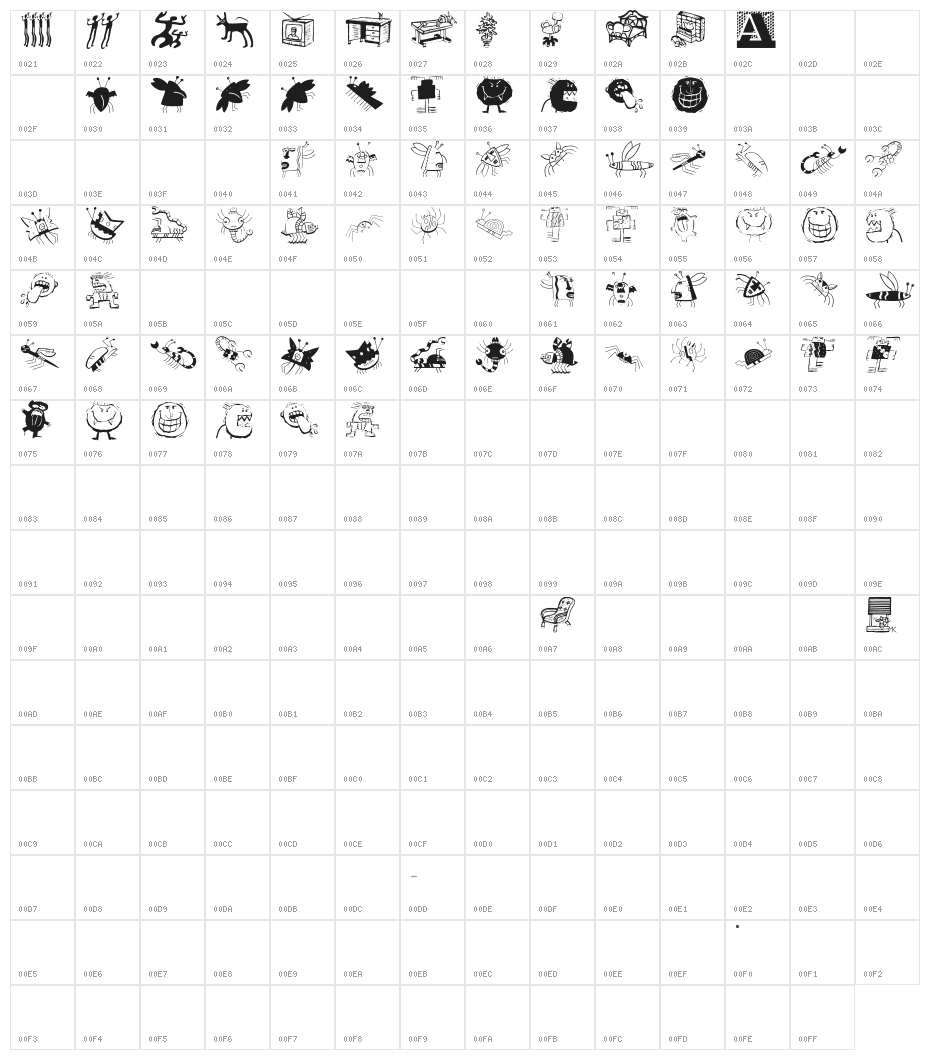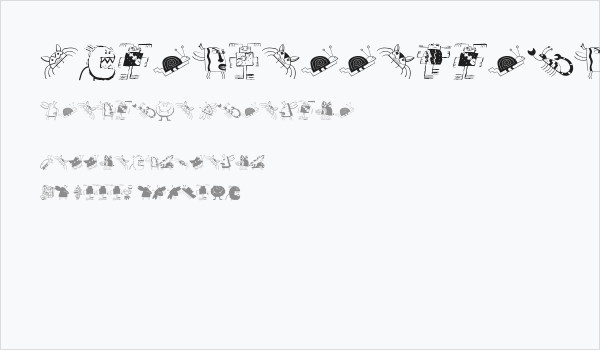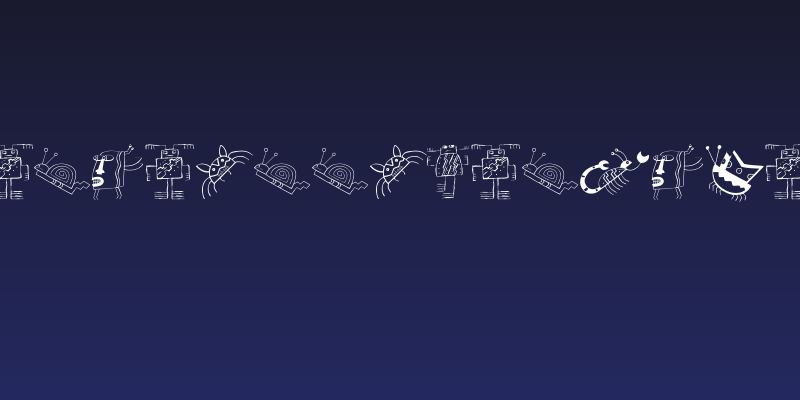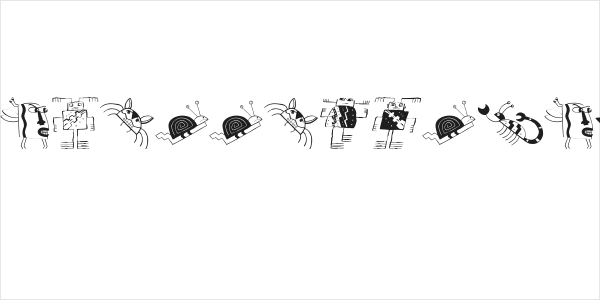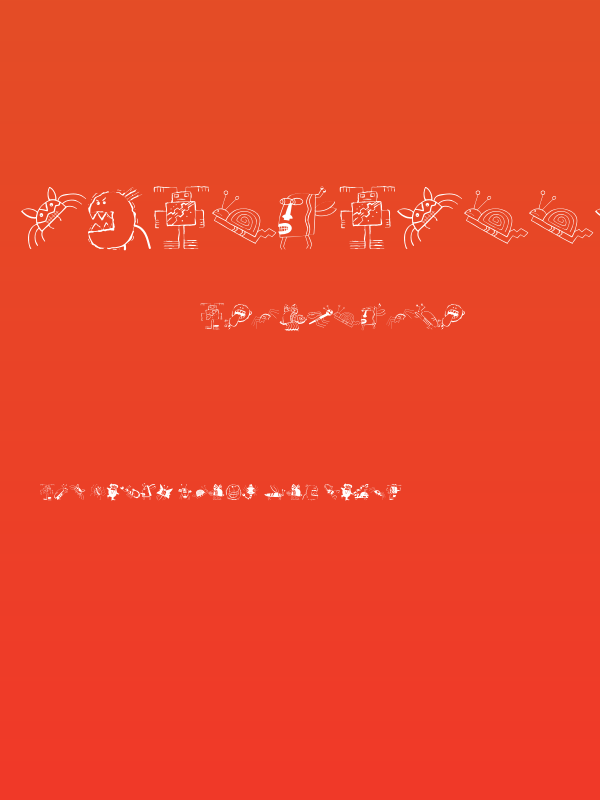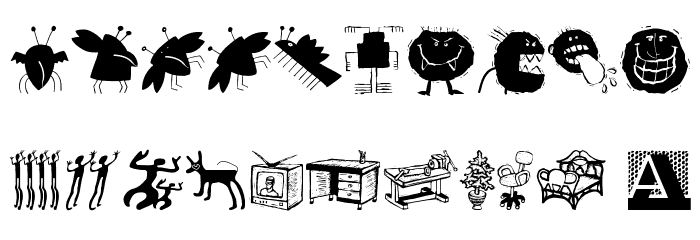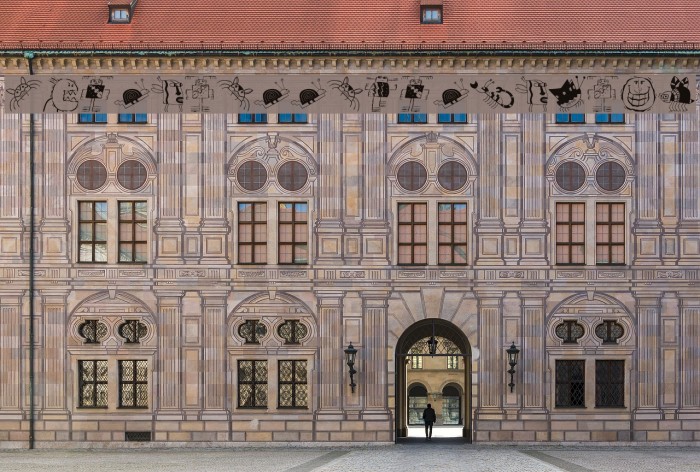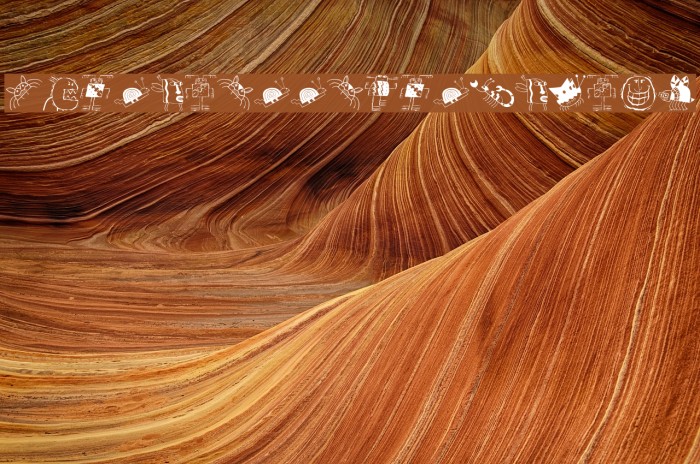
This font features a whimsical and playful design, incorporating a variety of quirky, cartoon-like characters and symbols. Each character is uniquely crafted with exaggerated features and imaginative elements, resembling a collection of doodles or sketches. The style is highly decorative, with a focus on creativity and humor, making it stand out as an artistic expression rather than a traditional typeface. The characters include a mix of insects, animals, and abstract figures, each with distinct personalities and expressions. The overall appearance is bold and eye-catching, with a hand-drawn quality that adds to its charm and uniqueness.
| Use Case | Logos, Posters, Artistic projects |
| Proposed Projects | Ideal for children's books, playful branding, creative posters, and artistic projects. |